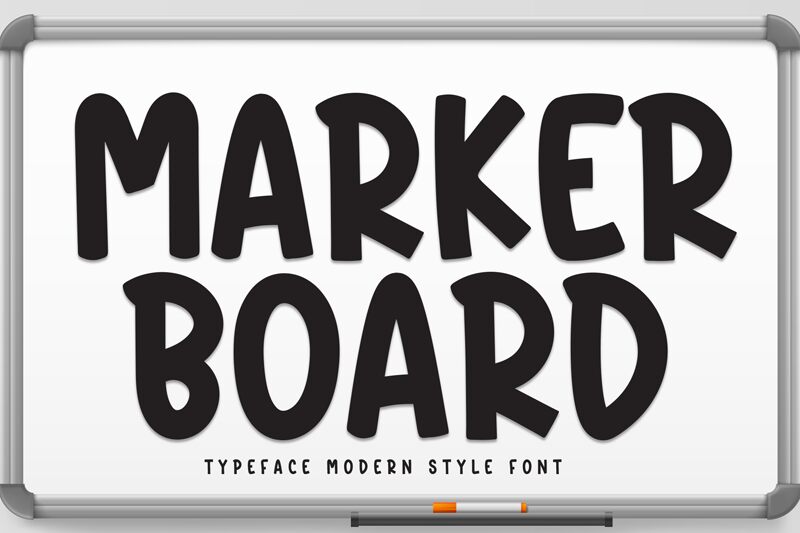
MARKER BOARD
Marker Board font by Andi Moz is a free handwritten font with casual organic elements and subtle irregularities within its simple letterforms. This display-type font mimics letters written with marker pens on a sketch or marker board with an overall rough, yet authentic hand-drawn vibe.